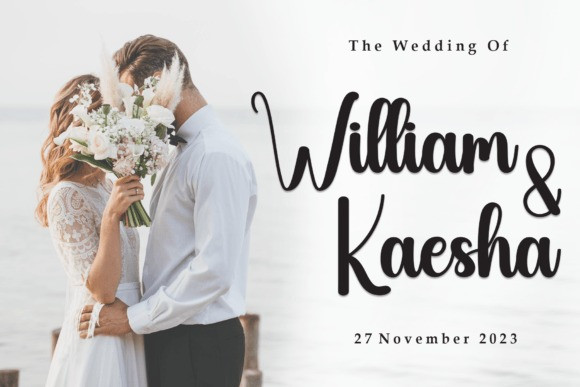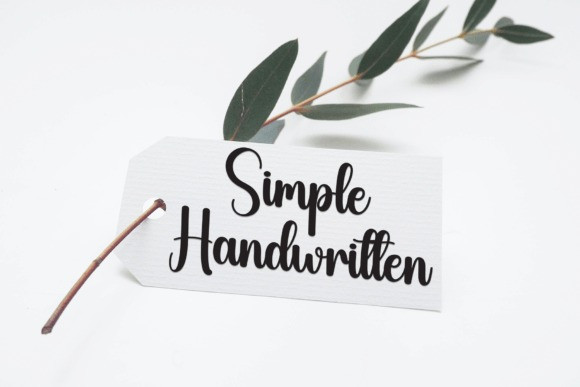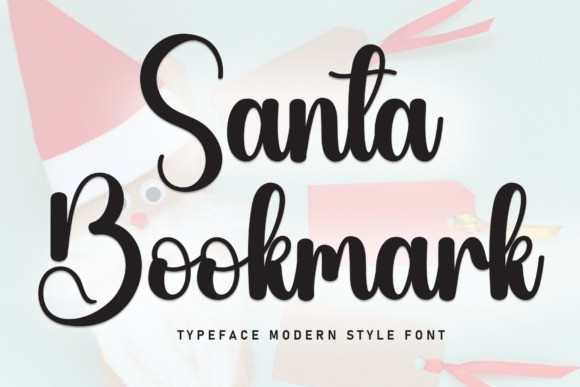
Santa Bookmark Font
Santa Bookmark Font is a sweet and friendly handwritten display font. Cute and fun, this font is ideal for writing wedding invitations, cards, or any other design that might need a fun touch!